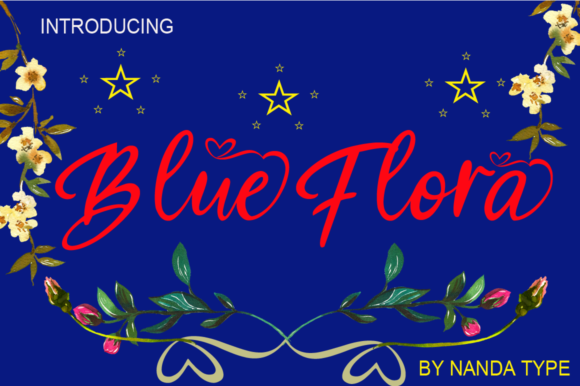
Discover the Allure of Blue Flora Font
There’s something magical about watching a young artist discover their creative voice. The way they experiment with different tools, colors, and techniques, slowly uncovering their unique style. For designers, this sense of discovery is a constant pursuit – and the right font can be the key to unlocking a project’s full potential.
Enter Blue Flora Font, a romantic and sweet calligraphy typeface designed to evoke the carefree spirit of youth. With its playful characters, including a teenager dancing along the baseline, this font is perfect for adding a touch of whimsy to your designs. PUA encoded, Blue Flora Font makes it easy to access all its amazing glyphs and ligatures, giving you the freedom to get creative.
Whether you’re working on a wedding invitation, a children’s book, or a social media campaign, Blue Flora Font is a valuable addition to your design toolkit. Its versatility and charm make it a must-have for any designer looking to add a touch of personality to their work.
Blue Flora Font Key Features
- Font Family: Blue Flora is a custom font family, designed to provide a unique and elegant feel to your digital and print designs.
- Character Count: Blue Flora includes a comprehensive set of characters, including uppercase and lowercase letters, numbers, punctuation marks, and special characters.
- Unique Characteristics: Blue Flora features a distinctive, hand-drawn feel, with subtle variations in letterforms and flourishes that add to its elegance and sophistication.
Designer Review: Blue Flora Font
I recently had the chance to work with the Blue Flora Font, and I must say it’s a unique and interesting choice. ✨ The font’s hand-drawn feel and elegant lines give it a touch of sophistication and whimsy. It’s perfect for projects that need a bit of flair, like branding for a boutique hotel or a high-end lifestyle magazine.
Here are some of the things that work well with the Blue Flora Font:
- ✨ Elegant and refined lines that add a touch of sophistication
- ✨ Unique and interesting feel that sets it apart from more common fonts
- ✨ Works well for branding and design projects that need a bit of flair
However, there are some limitations to keep in mind:
- ⚠️ May be difficult to read in small sizes due to the intricate details
- ⚠️ May not be suitable for projects that require a more modern or minimalist feel
- ⚠️ Some characters may not be fully compatible with all operating systems
Overall, I think the Blue Flora Font is a great choice for designers who want to add a bit of elegance and whimsy to their projects. However, it’s not without its limitations, and designers should be aware of these before making a final decision.
Tips for Getting the Most Out of Blue Flora Font
Blue Flora Font is a beautiful and elegant script font that works well for:
- Food and drink menus.
- Floral and botanical designs.
To get the most out of Blue Flora Font, use it sparingly and in combination with other fonts to create visual interest.
Blue Flora Font is commonly used for:
- Wedding and event branding.
- Floral and garden designs.
- Food and drink packaging.
Remember to use Blue Flora Font in a way that is consistent with your brand and design aesthetic.
Alternative Fonts to Blue Flora
Pacifico is a beautiful, modern script font that is perfect for designs that require a touch of elegance and sophistication. It is ideal for use in branding, advertising, and packaging.
Compared to Blue Flora Font, Pacifico has a more relaxed and casual feel, while Blue Flora Font has a more whimsical and playful vibe.
Great Vibes is a beautiful, handwritten font that is perfect for designs that require a touch of personality and character. It is ideal for use in branding, advertising, and editorial design.